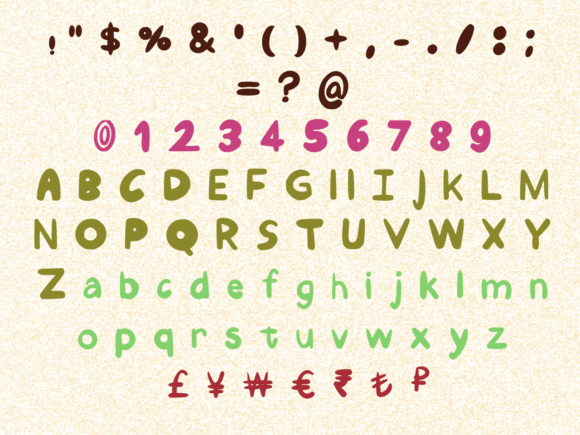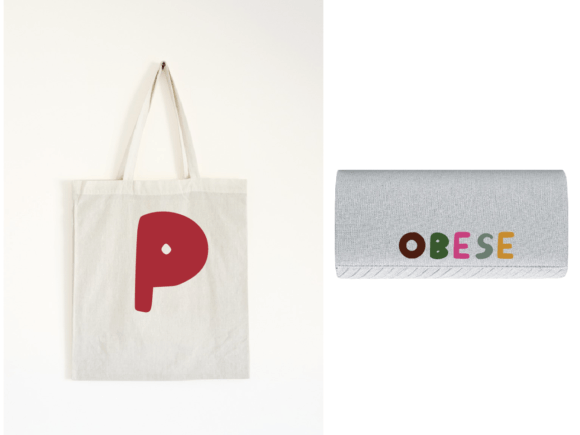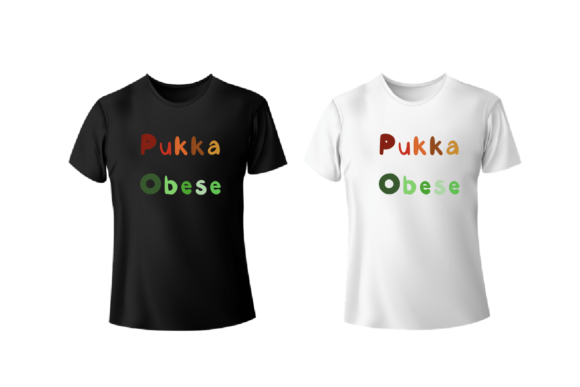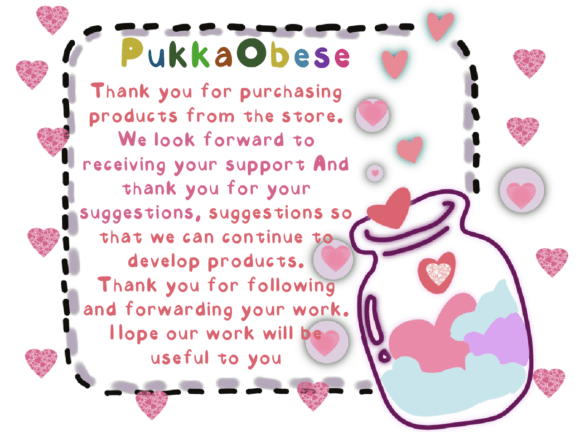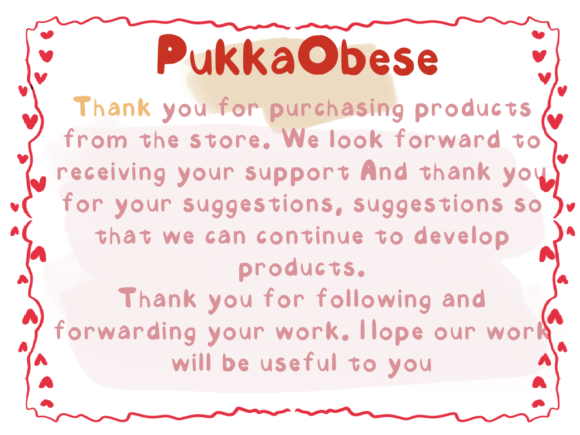
Introduction to Pukka Obese Font Font
Fonts play a crucial role in design, and the Pukka Obese Font font is a typeface that brings both character and versatility to any project. Whether you’re working on a branding project, a website, or a print design, the Pukka Obese Font font offers a unique style that can elevate your work.
Pukka Obese is a childish, easy-to-read handwritten font that conveys impeccable friendliness.
Whether youβre using it for crafts, digital design, presentations, or making greeting cards, this font has the potential to become your favorite go-to font, no matter the occasion .
Key Features of Pukka Obese Font Font
Why Choose Pukka Obese Font Font?
The Pukka Obese Font font is more than just a typeface β it’s a design tool that helps you communicate your message with style and clarity. Its unique character set and versatile design make it suitable for a wide range of applications, from elegant invitations to bold headlines.
With its carefully crafted letterforms and balanced proportions, the Pukka Obese Font font ensures readability and visual appeal across all mediums.
What makes Pukka Obese Font font special?
The Pukka Obese Font font stands out with its unique design, exceptional readability, and versatility across various design applications.